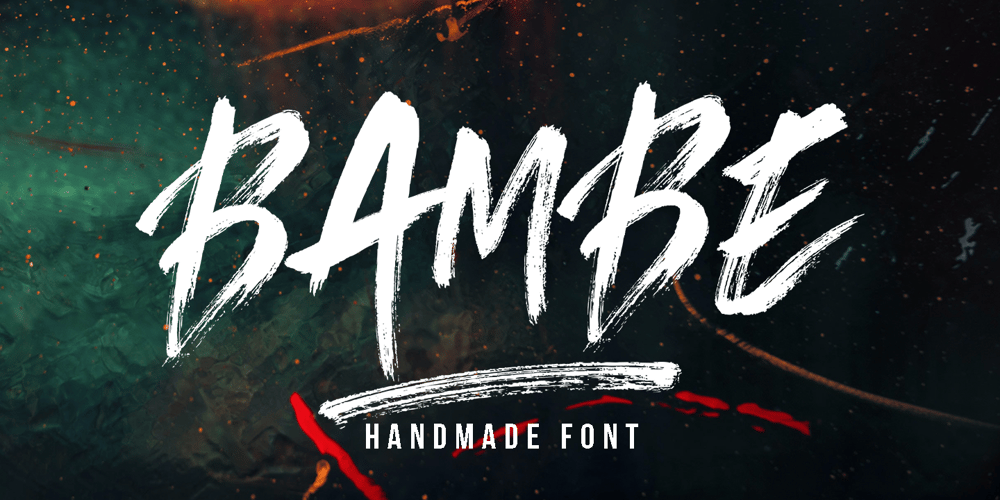
Bambe Font Family was designed by Afri Giani and published by Gian Studio. Bambe contains 2 styles and family package options. INTRODUCINGBAMBE is handwritten, made with a brush, this font will rip your text with unmistakable energy, a dynamic and spontaneous flow. To help you create a stunning custom handwritten look, Bambe is perfect for magazines, t-shirts, packaging, logos, advertisements, quotes, branding, posters, editorials, cover artwork, films, websites, etc.BAMBE contains uppercase letters and some alternative characters, punctuation marks, numbers. Also includes the added bonus of a handcrafted, perfectly designed swash for headlines and short text.BAMBE encoded with Unicode PUA, Allows full access to all additional characters without designing any special software. Mac users can use Font Book, and Windows users can use Character Map to view and copy any additional characters for pasting into your favorite text editor / application.Thank you very much for viewing and Enjoying it!